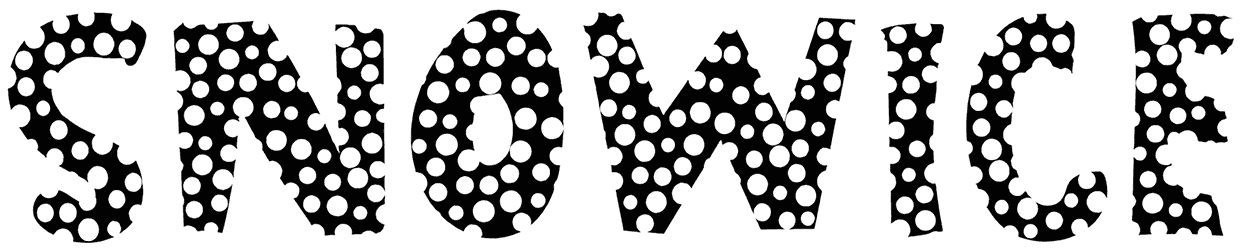
Snowice Font
You don’t need to use repetitive elements to create a winter feeling in your Christmas projects, just download Snowice. This winter font has snowflakes that fall on every letter.
So, it can create a cold and snowy theme in your texts and give them a wonderful shine. Although this dotted font doesn’t support lowercase letters, it can still be used in the design of the main titles and posters with Christmas themes.